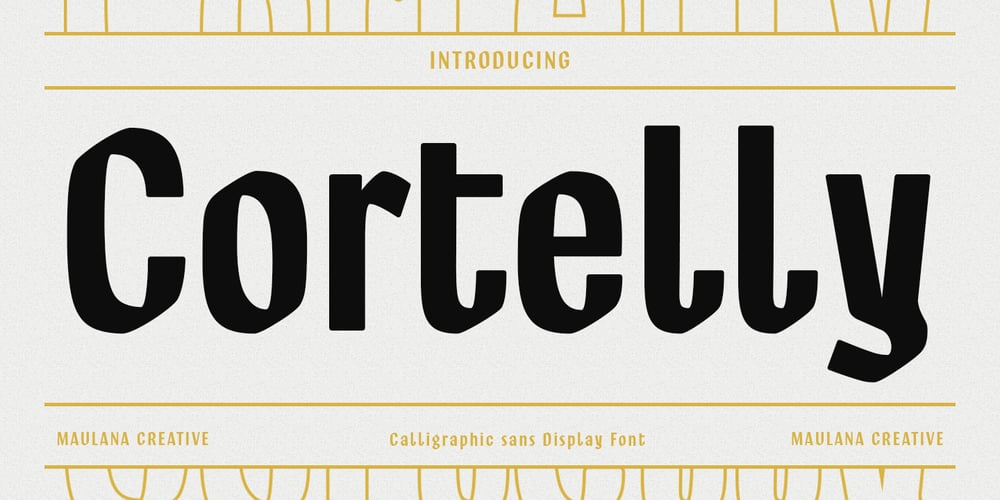
MC Cortelly Font Family was designed by Gilang Maulana and published by Maulana Creative. MC Cortelly contains 1 styles and family package options. Cortelly is a calligraphic feel sans Display font. Regular stroke, fun character with a bit of ligatures and alternates. To give you an extra creative work. Cortelly font support multilingual more than 100+ language. This font is good for logo design, Social media, Movie Titles, Books Titles, a short text even a long text letter and good for your secondary text font with script or serif. Make a stunning work with Cortelly font. Cheers, Maulana Creative